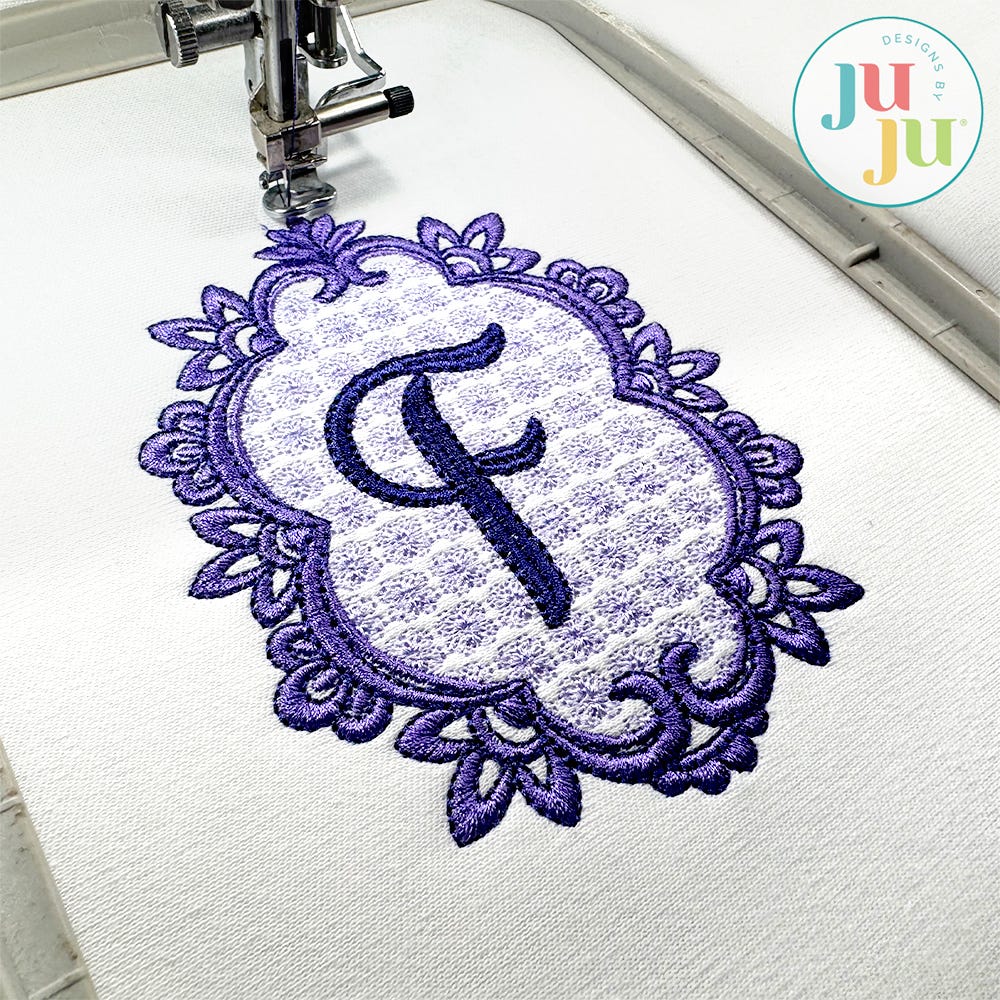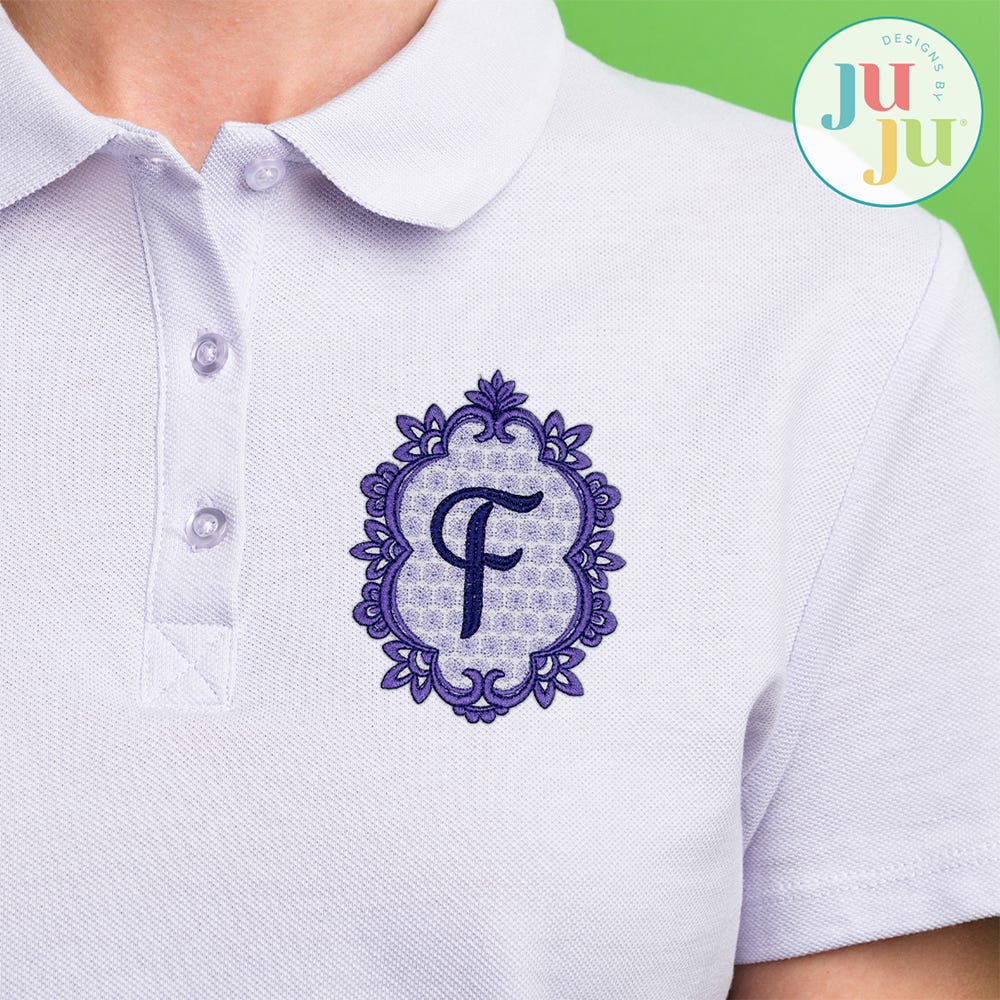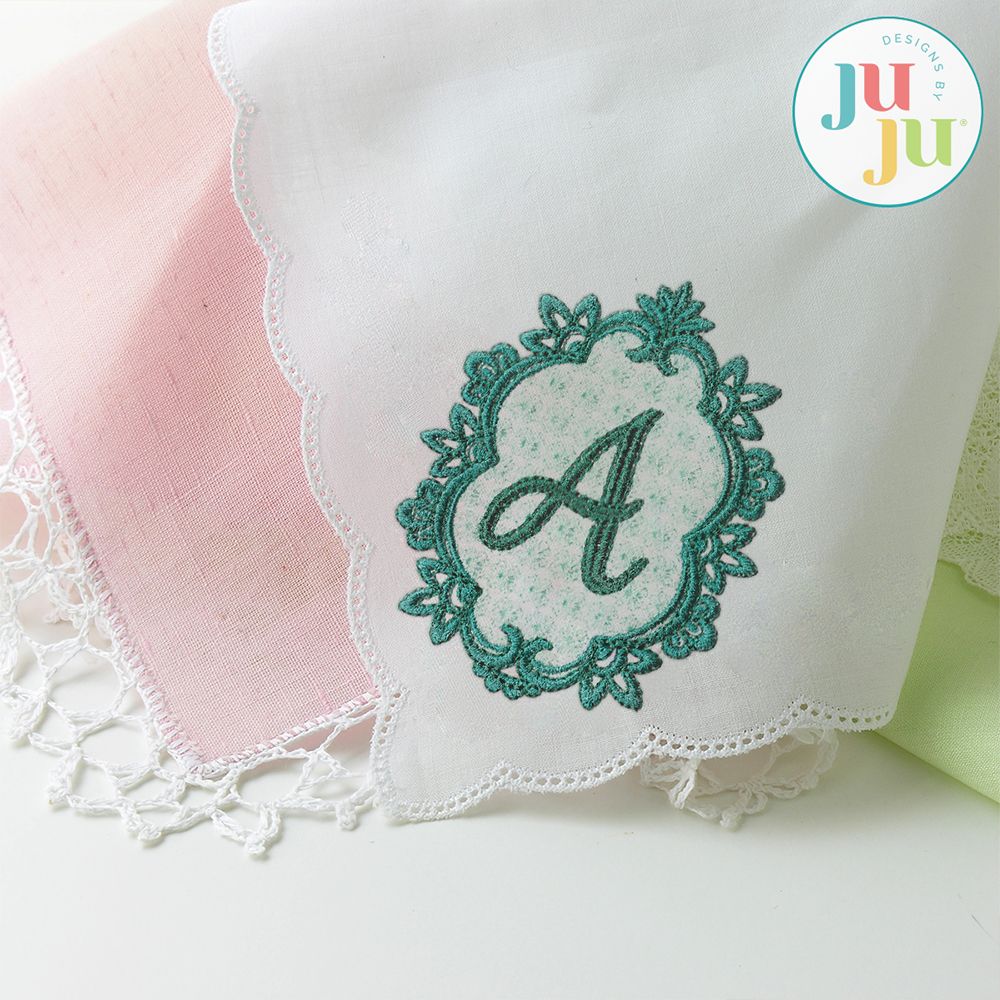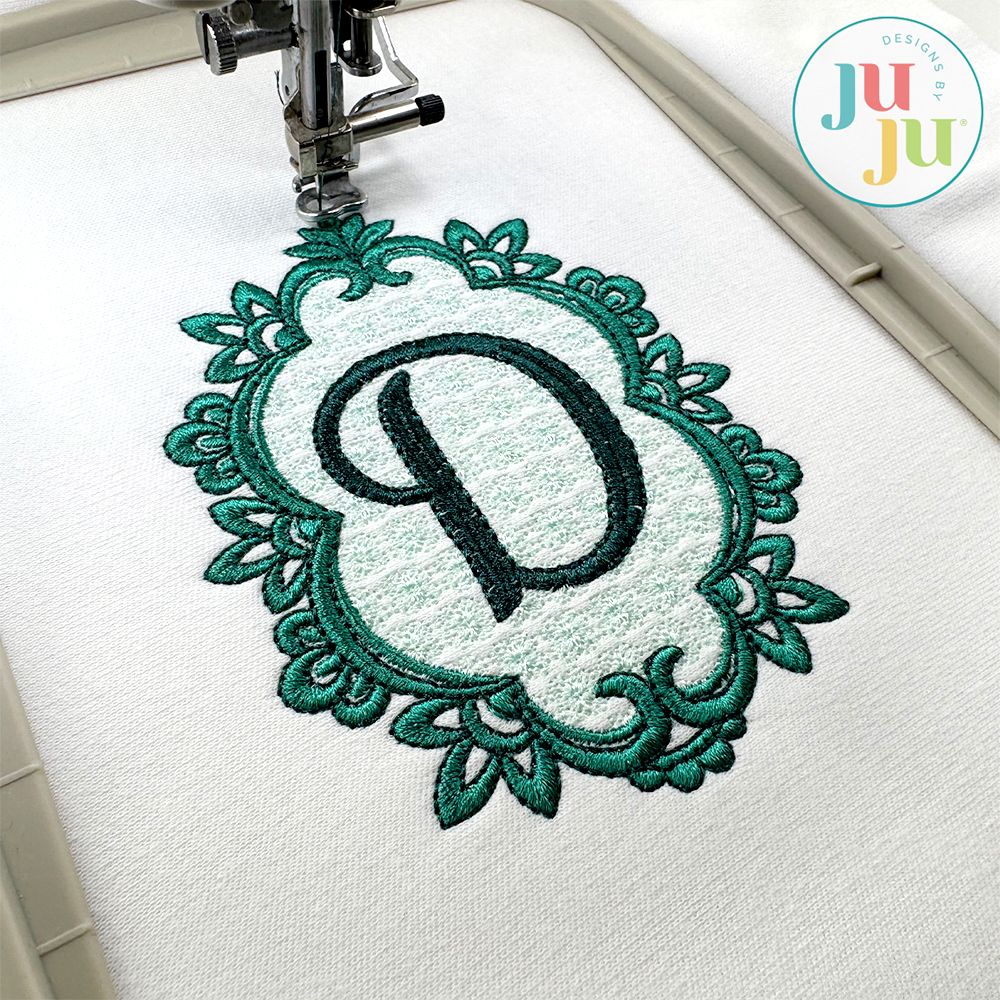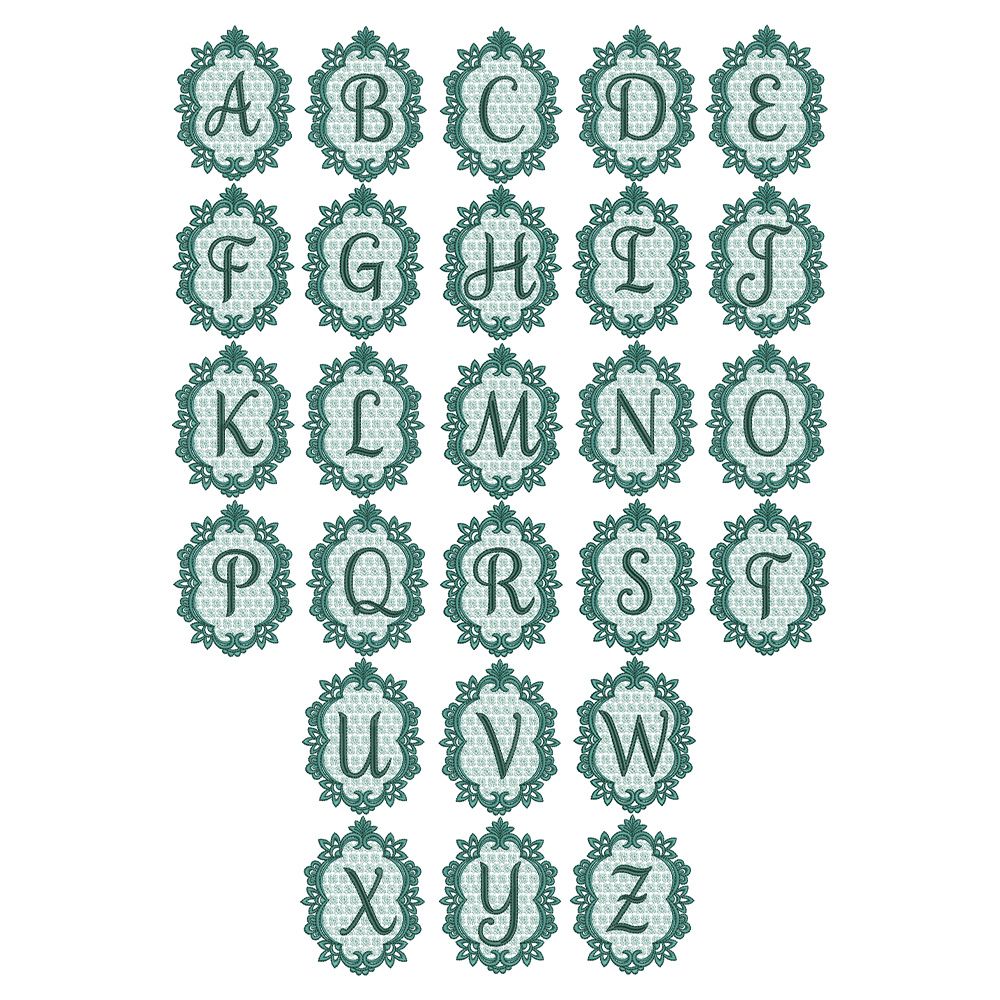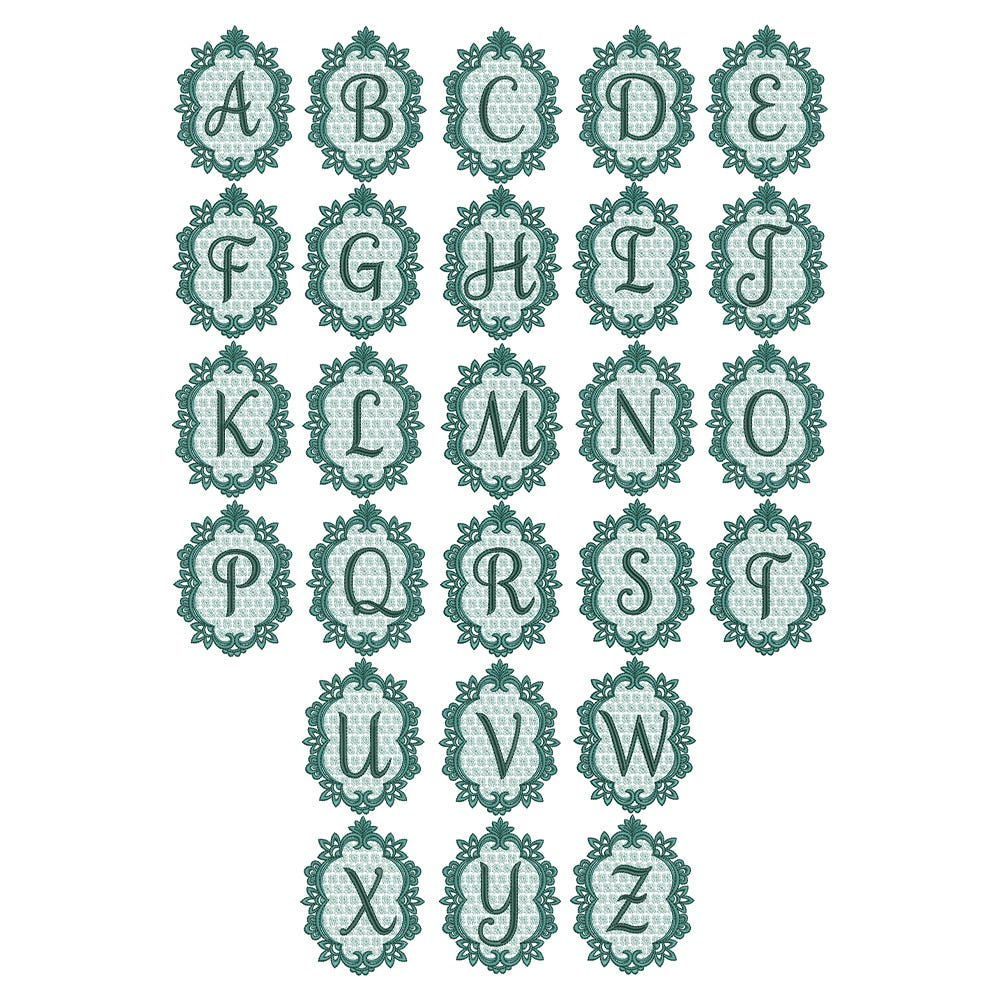
Cassandra Motif Filled Monogram Embroidery Font
Add a touch of elegance to your project with our Cassandra Monogram. This embroidery-only monogram features lovely script letters on top of beautiful decorative satin stitch frames with bean stitch outlines, and flower motif stitch backgrounds.
Some letters in the larger sizes feature split satin stitches.